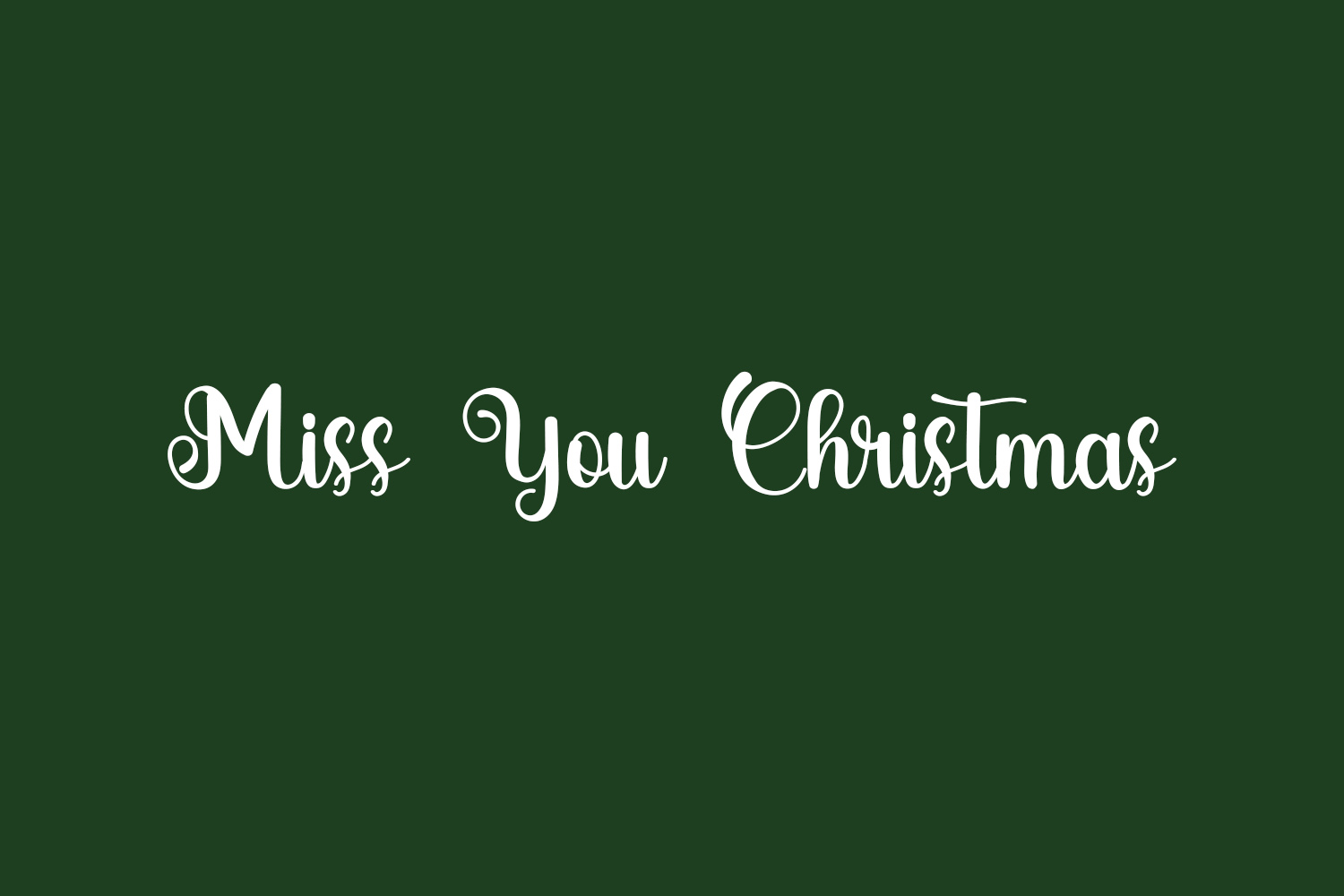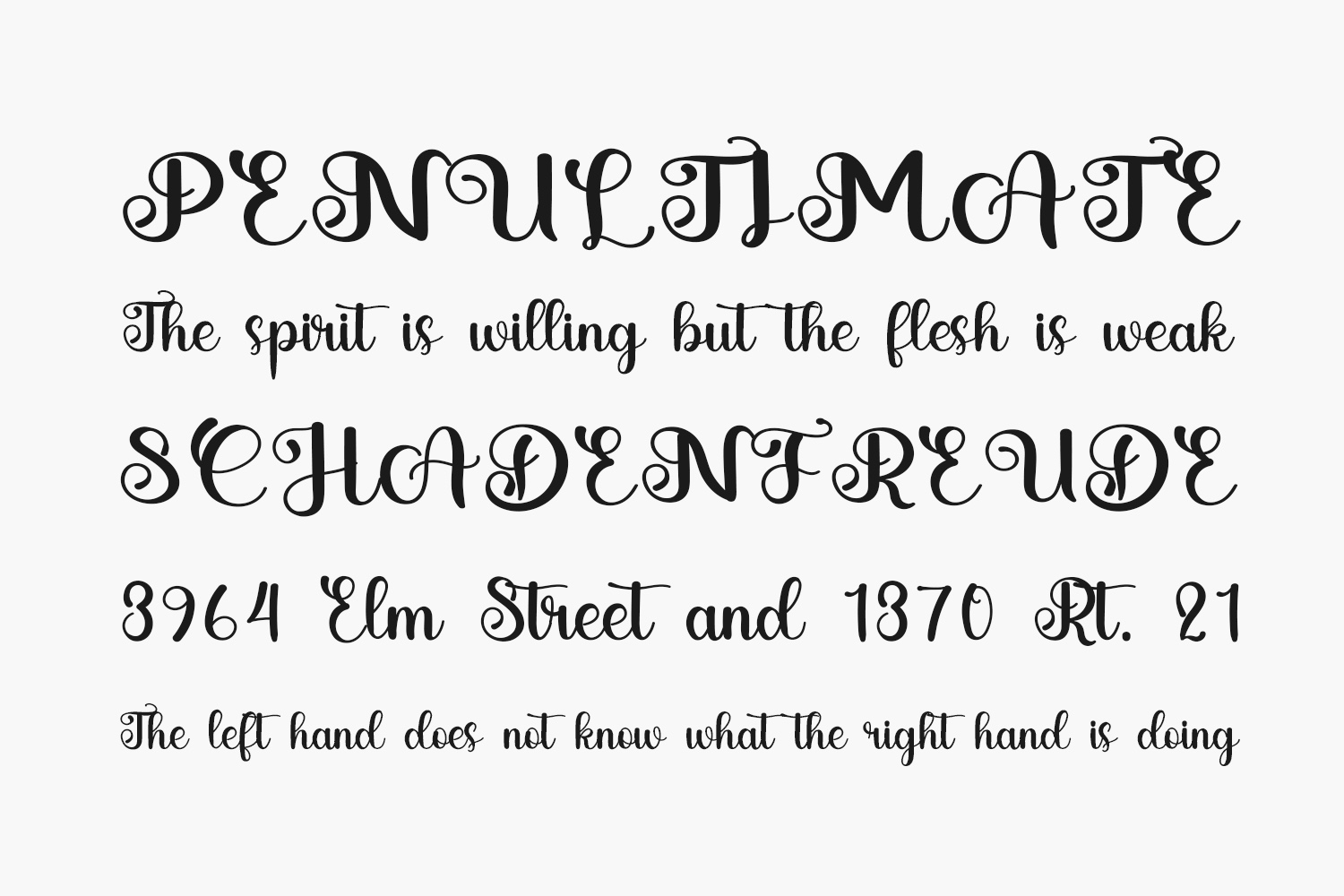
Miss You Christmas Free Font is a beautiful and charming handwritten font. It is suitable for various business needs, including shirt designs, logos, banners, and others. Miss You Christmas Free Font was designed by Inermedia Studio and is free for personal use only. Please purchase the full version for commercial use.
Designed by Inermedia Studio